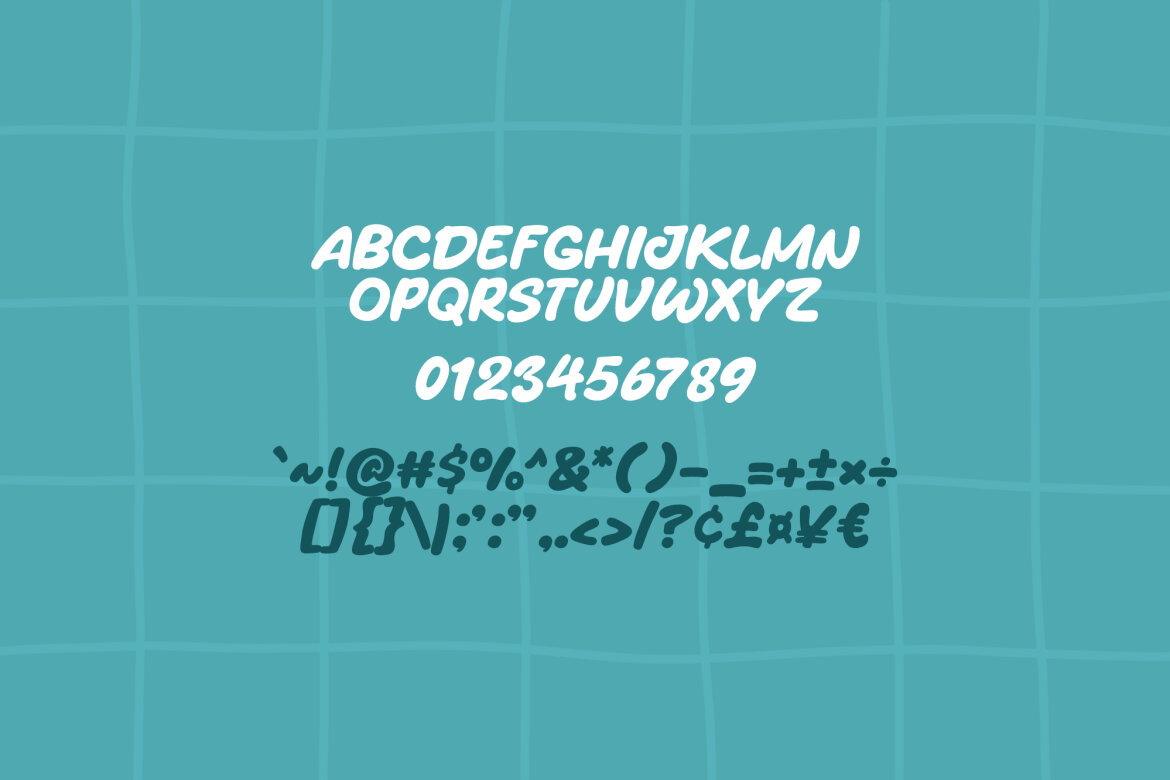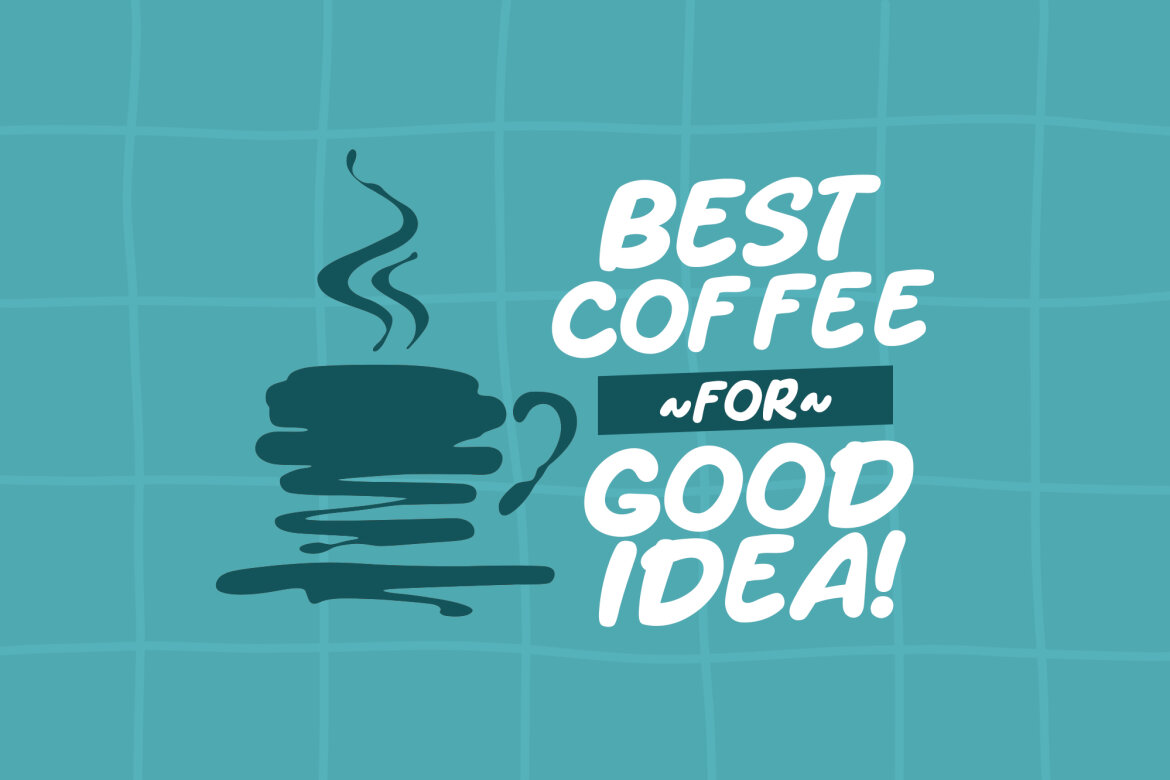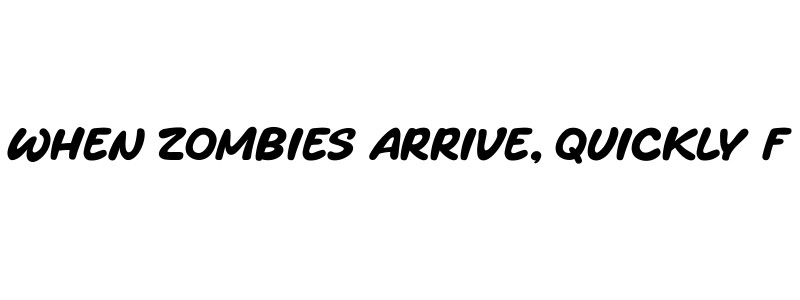
Waytoon FREE Font
Waytoon
Waytoon is a modern and cute display font perfect for posters, logos, magazines, book covers, banners, and many more! Get this amazing font, and use it to create lovely designs. It can easily be matched to an incredibly large set of projects, so add it to your creative ideas and notice how it makes them stand out!